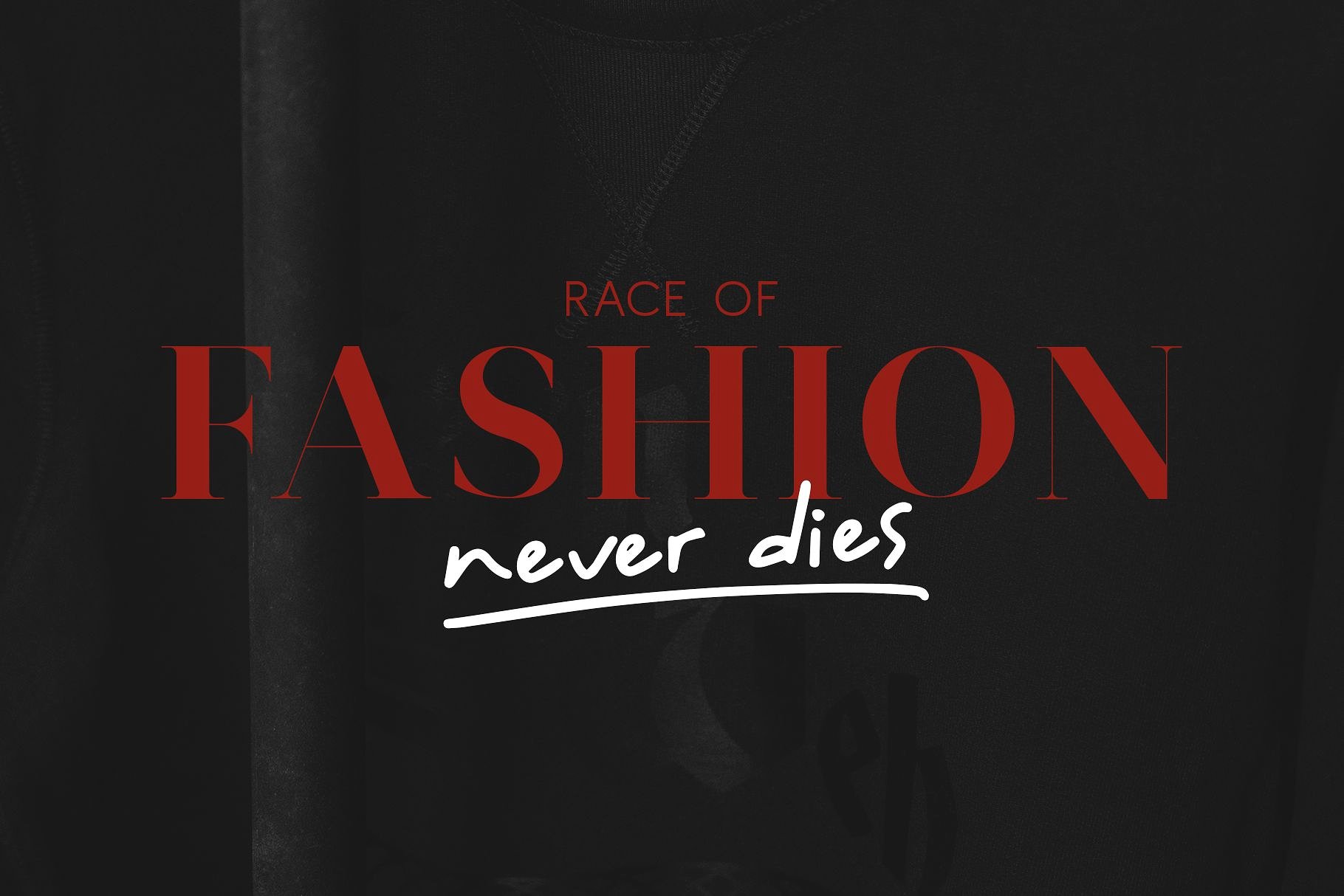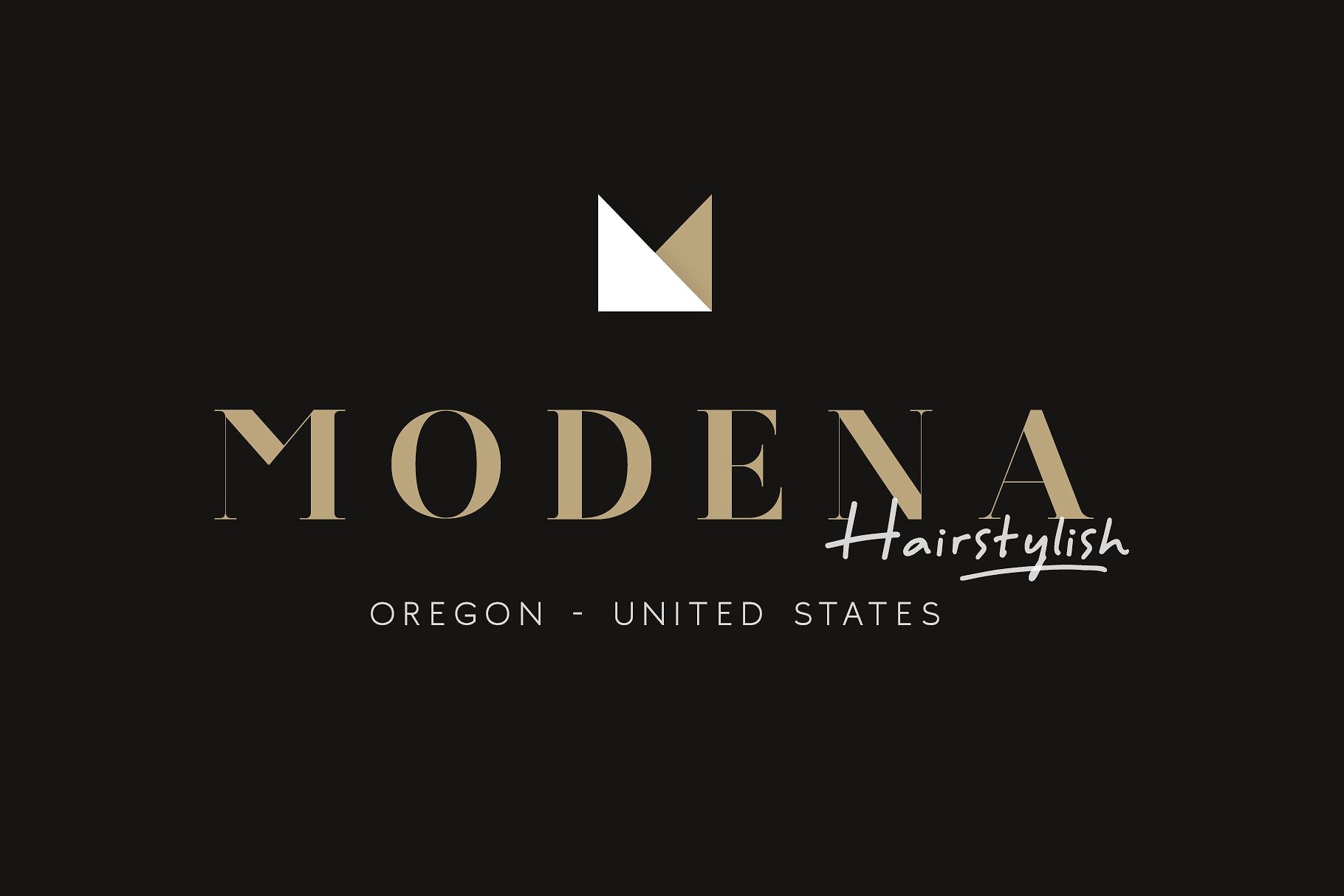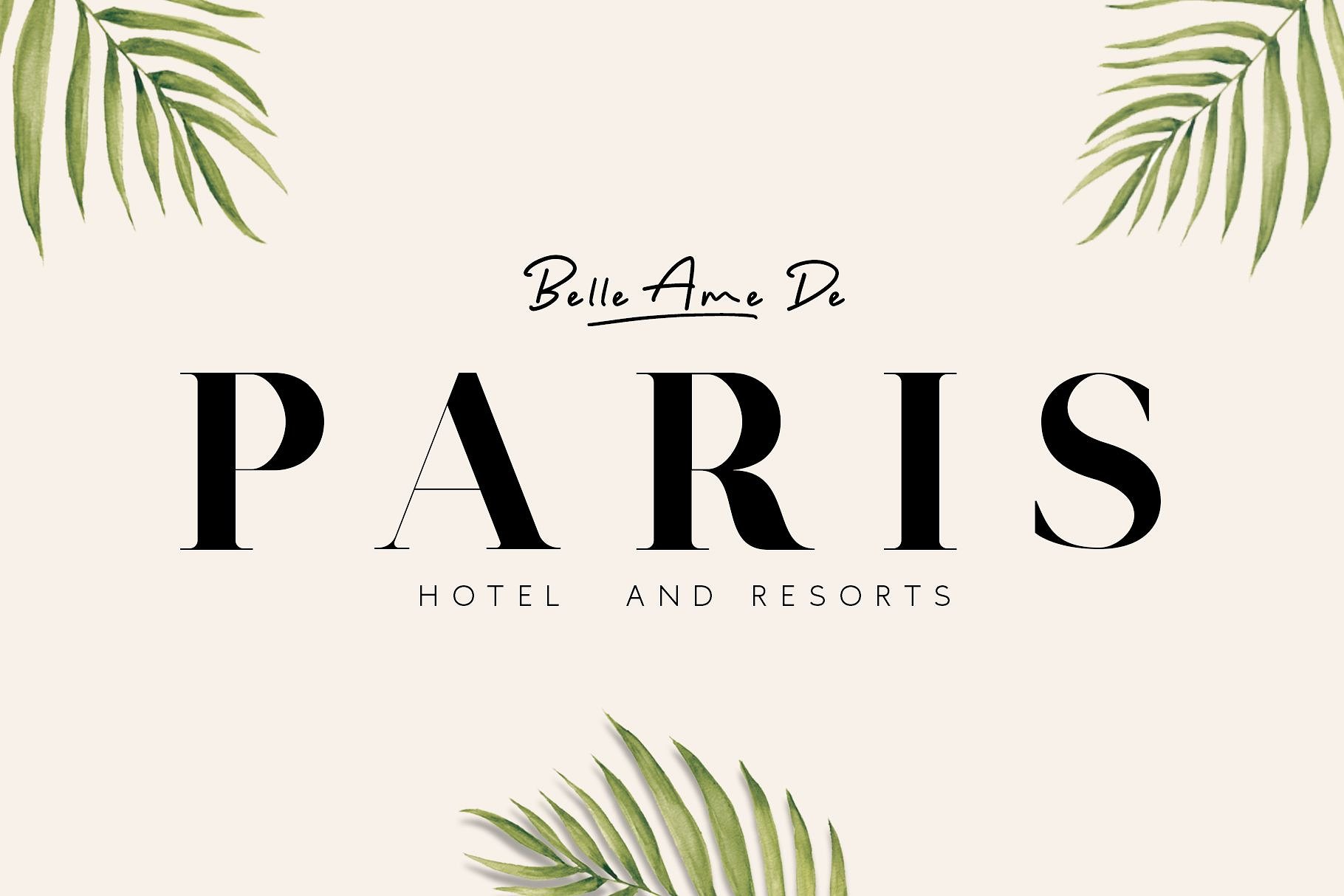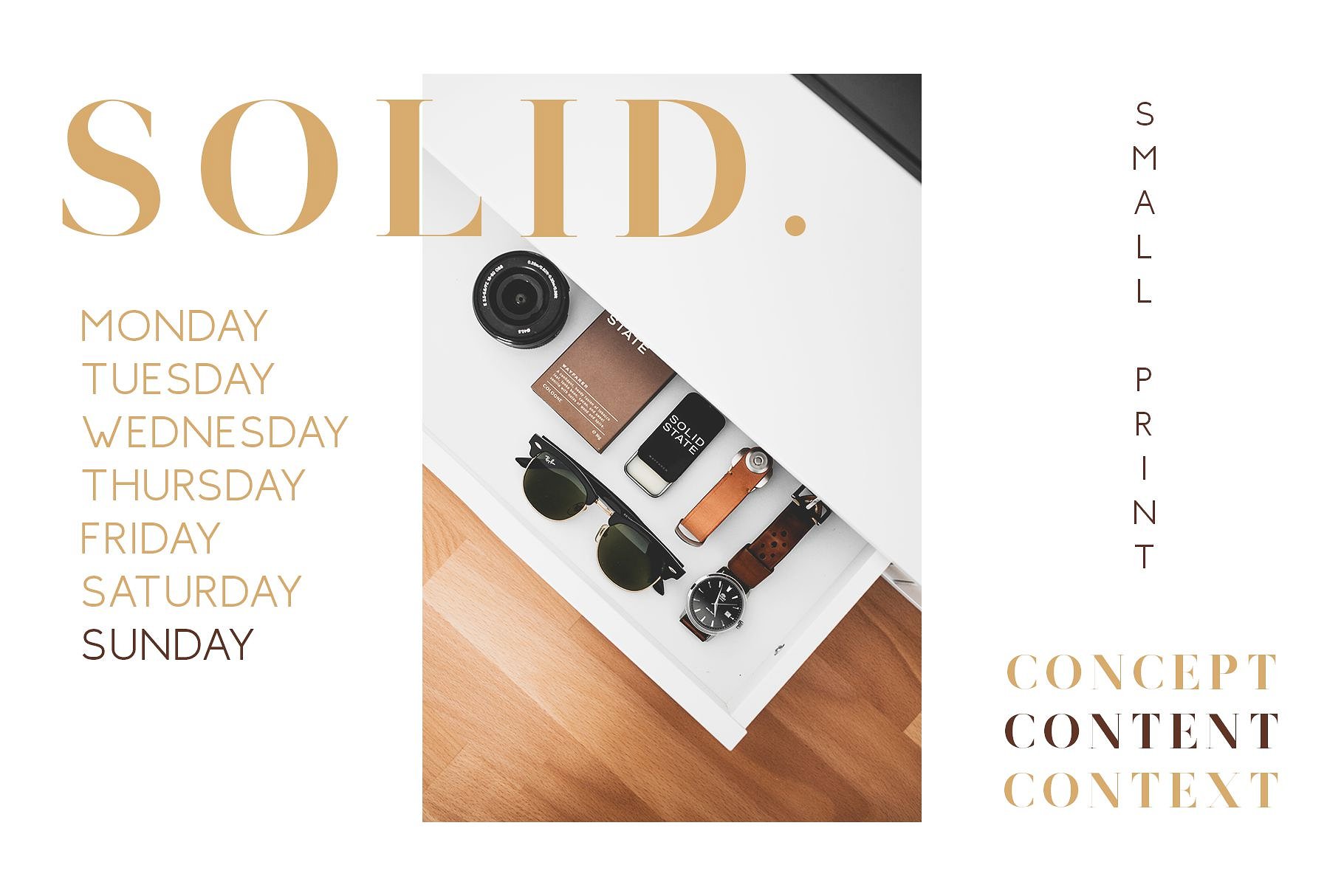
Troye Font Trio
Troye Font Trio – Free Demo
This is a font trio with script, sans and serif font. A typeface inspired by love, passion and balance. An elegant light design full of charm and sophistication. Introducing Troye Font Trio. The Troye designed and shared by Craft Supply Co.. The Brittany is an elegant font trio. It comes with 5 styles which can be paired together perfectly! It gives you the opportunity to create stylish and modern designs, every time you use it. The Brittany is the great choice for watermark on photography, signature or signature logo design, quotes, album cover, business card, and many other design project.